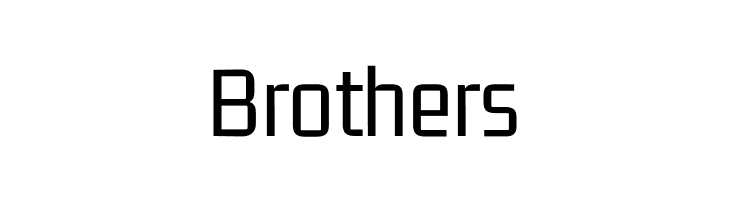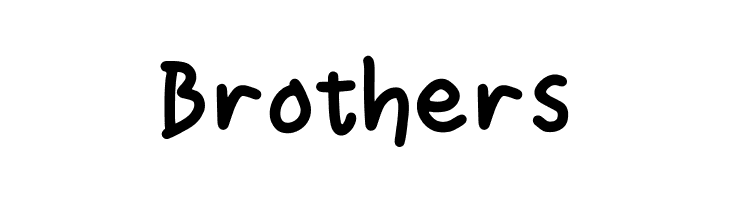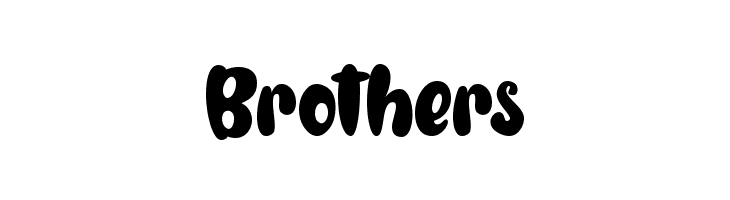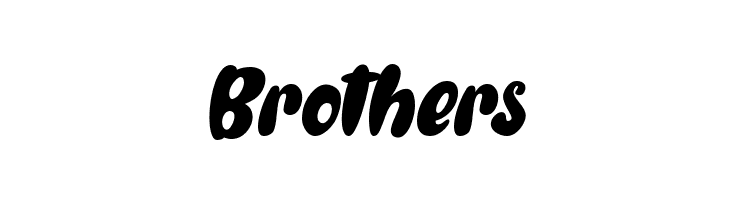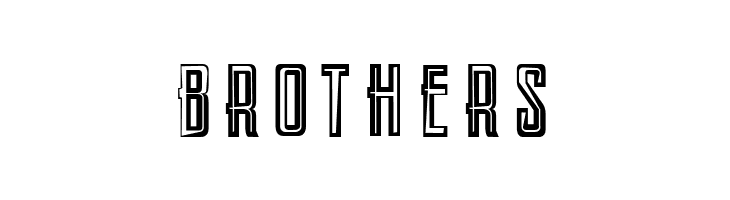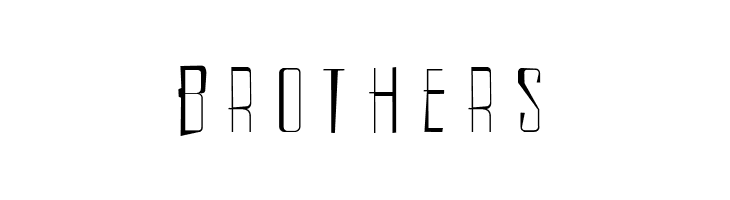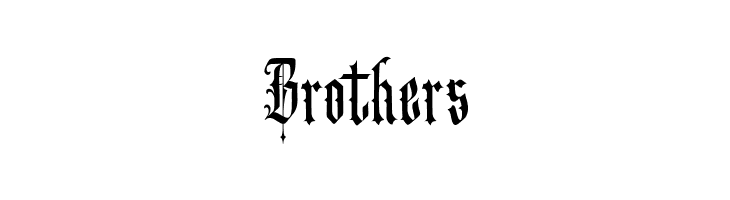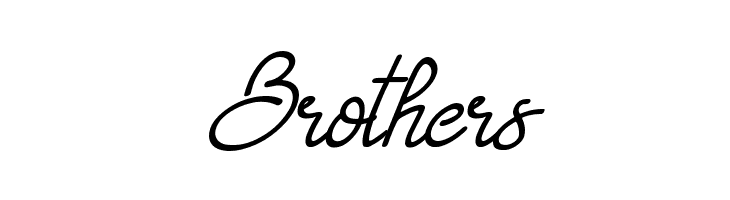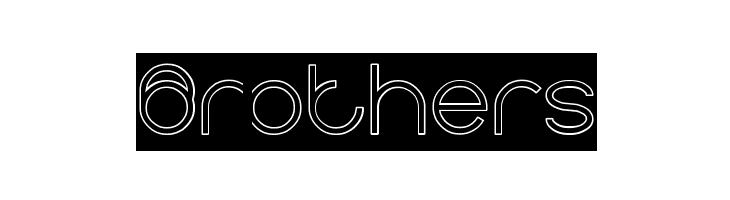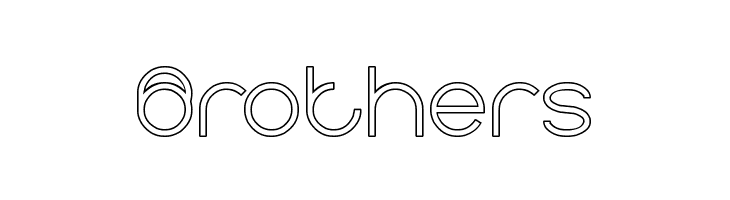
A playful, handwritten font with smooth, rounded edges and a casual style.
A casual, handwritten font with smooth, rounded characters.
A decorative font with characters wrapped in horizontal stripes, offering a playful and whimsical style.
A sophisticated script font with flowing, cursive characters and medium contrast.
A bold, textured font with a hand-painted, rugged style.
An ornate Blackletter font with intricate, angular designs and a vintage feel.
A bold, brush-style font with dynamic, hand-painted strokes.
A bold, playful handwritten font with thick strokes and a casual vibe.
A modern, geometric font with circular and symmetrical letterforms.
A modern, geometric font with rounded edges and a sleek, minimalistic style.
A bold, italic font with a modern and dynamic style.
A sleek, modern italic font with smooth curves and clean lines.
A modern, hollow font with geometric shapes and clean lines.
A modern, hollow, inverse font with geometric and futuristic design.
A modern, geometric font with consistent stroke width and playful letterforms.
A graceful script font with flowing, interconnected letters and a modern classic appeal.
A bold, playful font with rounded, bubbly characters and a fun, creative style.
A bold, playful script font with a dynamic, handwritten style.
A bold, playful, hand-drawn font with a casual and friendly appearance.
A geometric, faceted font with sharp, angular edges.
A bold, geometric font with sharp angles and a faceted, gemstone-like appearance.
A bold, italicized font with geometric, angular design elements.
A modern, angular italic font with a gemstone-like design.
A playful, casual handwritten font with smooth, flowing curves.
A modern, geometric font with sharp angles and smooth curves.
A bold, geometric font with a modern, industrial feel and outlined characters.
A playful, casual handwritten font with smooth, flowing lines and uniform strokes.
An elegant cursive script font with smooth, interconnected strokes.
A bold, handwritten font with a playful and casual style.
A playful, bold handwritten font with a whimsical and friendly appearance.
A bold, handwritten font with a playful and friendly style.
A bold, hand-painted style font with a dynamic and playful appearance.
A bold, graffiti-inspired font with angular, dynamic letterforms.
A modern, geometric sans-serif font with a clean and uniform appearance.